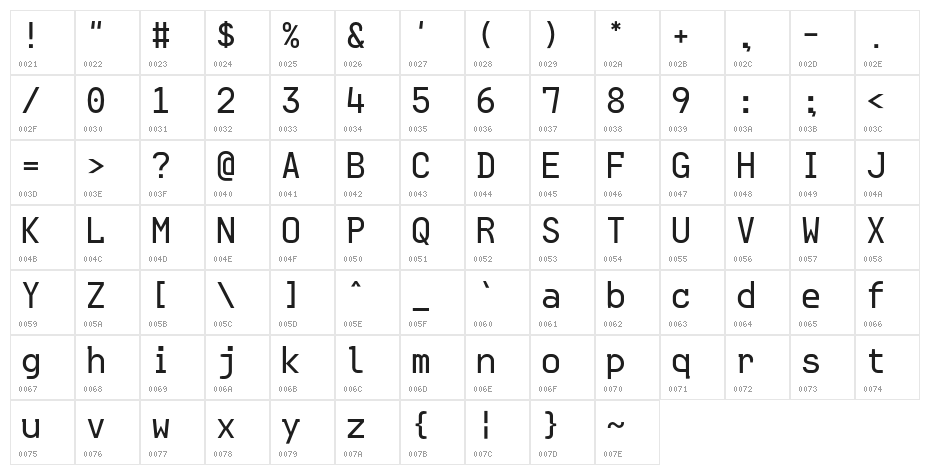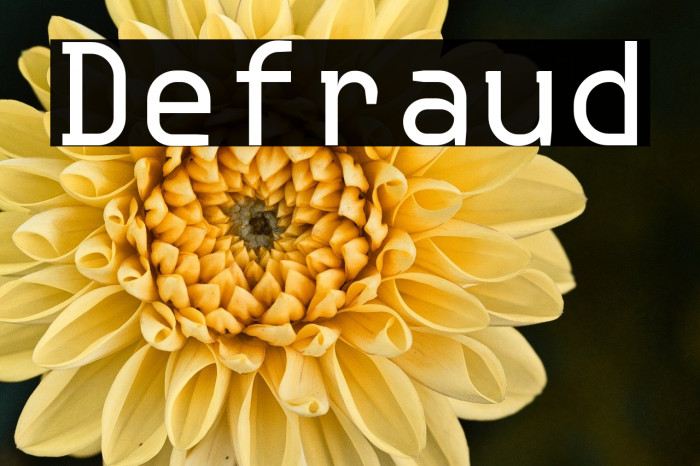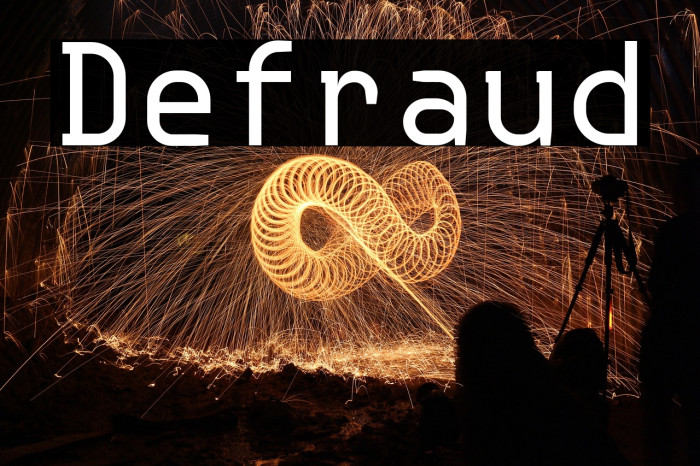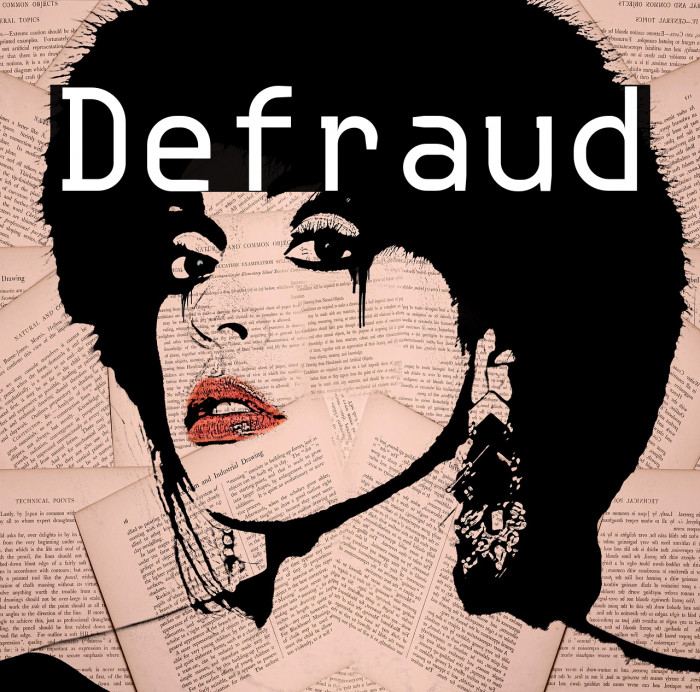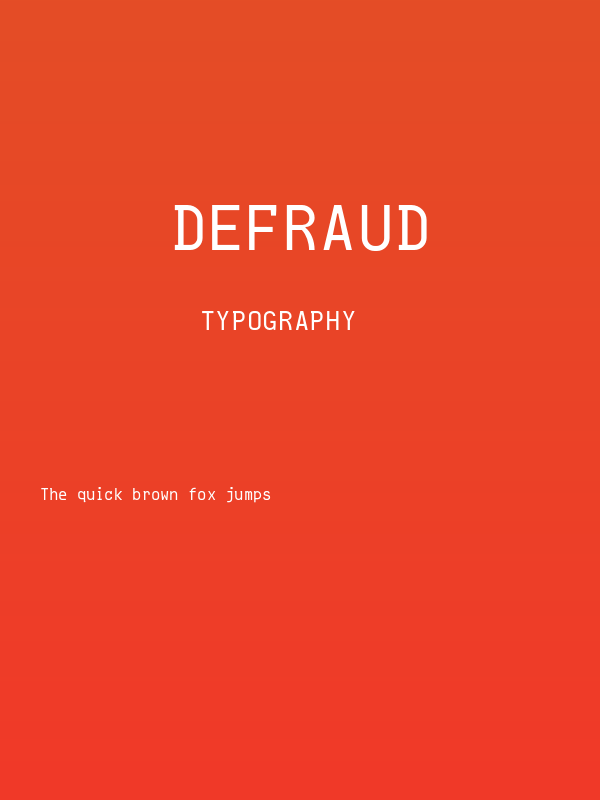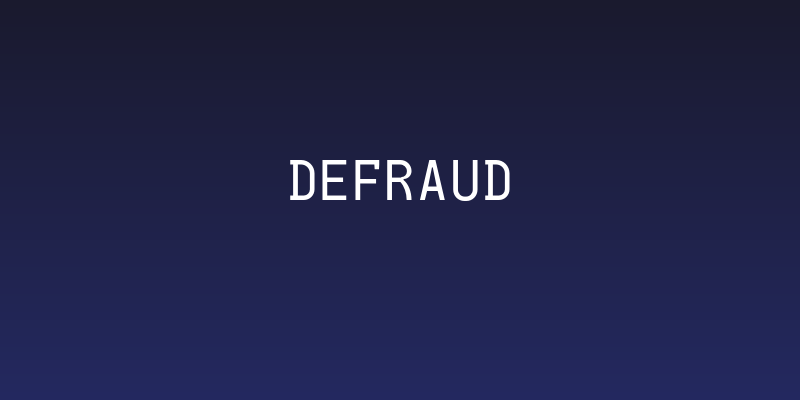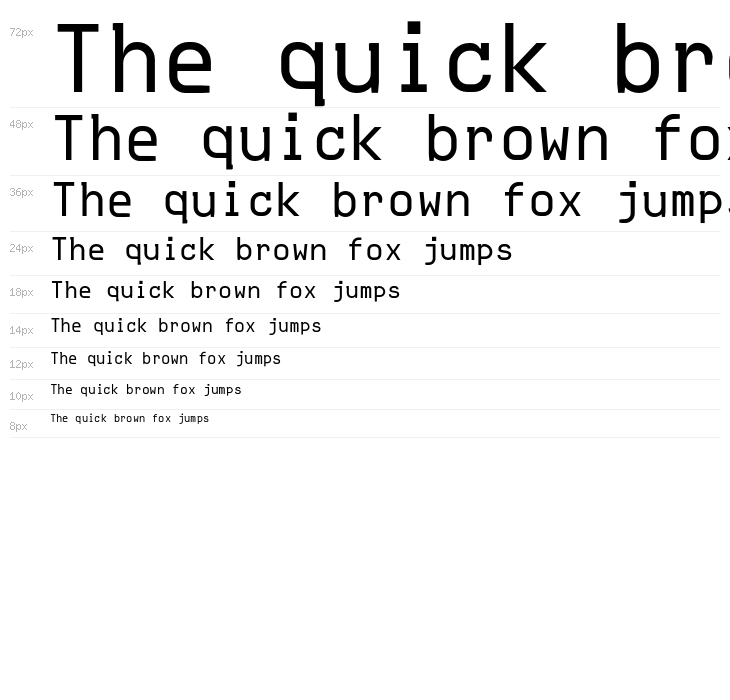
Defraud Font
Defraud Description
This font exhibits a clean, modern sans-serif style with a geometric structure. The characters are uniform in width, providing a monospaced appearance that enhances readability and precision. The uppercase and lowercase letters maintain a consistent height, with rounded edges that soften the overall look. The numerals are clear and distinct, making them suitable for technical or digital applications. Special characters are well-defined, adding to the font's versatility. The design is straightforward, with minimal contrast in stroke thickness, emphasizing functionality over embellishment.
| Use Case | Coding, Technical documentation, Digital interfaces |
| Proposed Projects | Ideal for coding environments, technical documentation, digital interfaces, and minimalist design projects. |